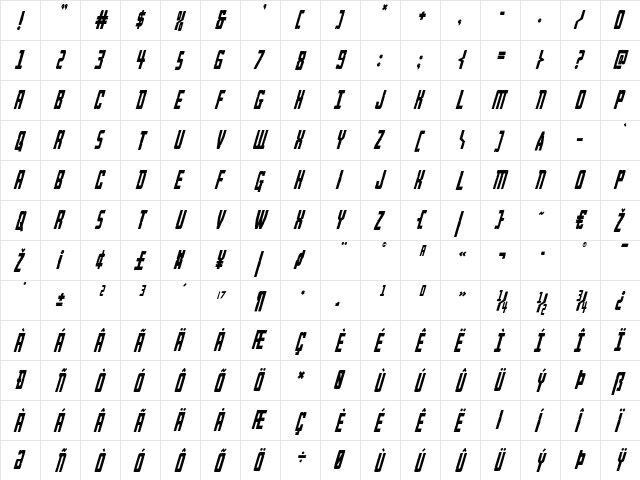
Rockledge Condensed Italic Font Preview
Design Context for Rockledge Condensed Italic Typeface
Rockledge Condensed Italic takes a measured approach to typography — its balanced proportions and neutral character make it a reliable workhorse for both digital and print work. Its italic angle brings a sense of urgency and motion to the letterforms. The condensed width makes it efficient for tight spaces without sacrificing legibility.
Pro Tip: Use Rockledge Condensed Italic for emphasis, pull quotes, and subheadings where its slanted energy can add rhythm to the layout.